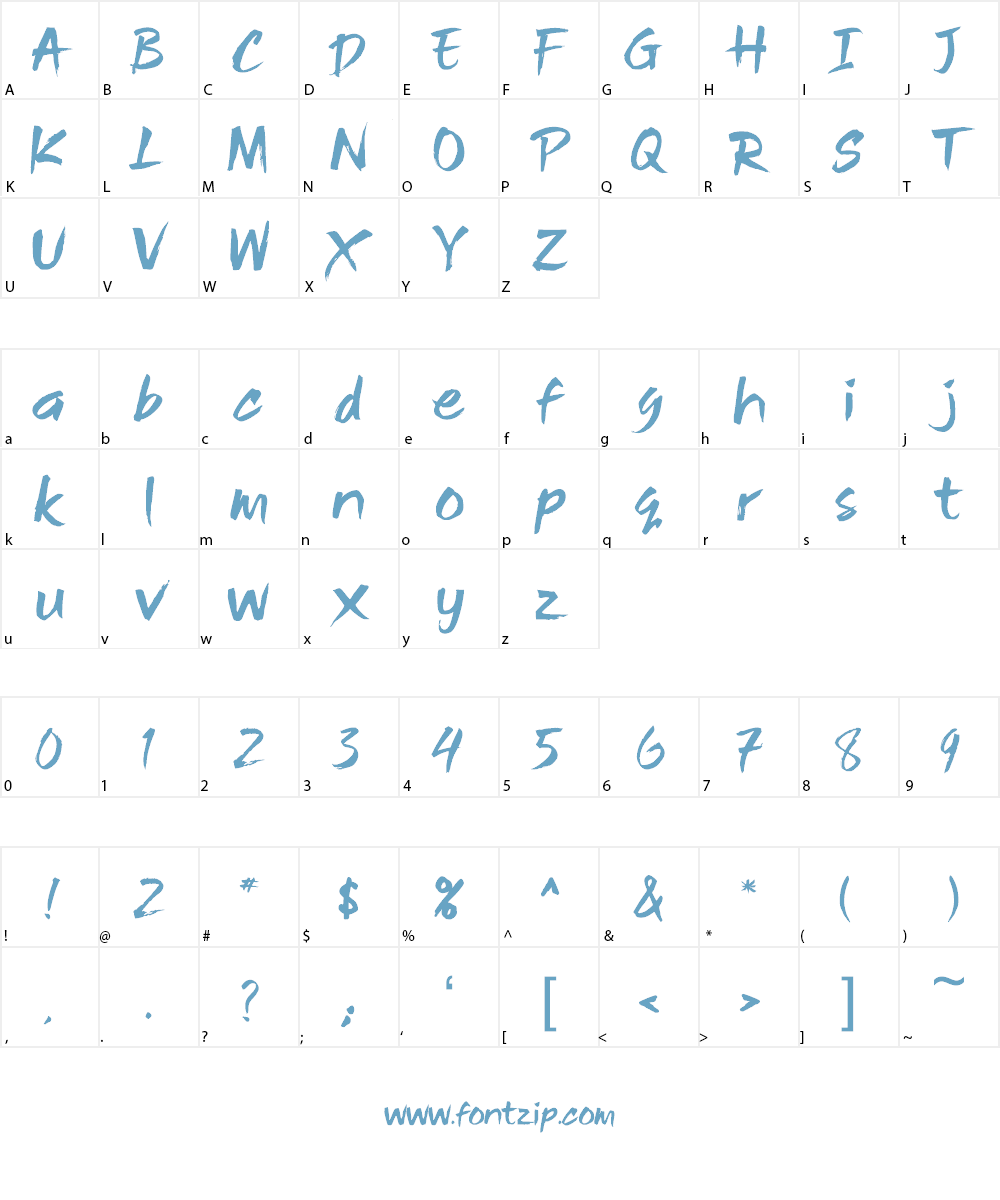
Bajigur Brush Font is a handmade brush font with free flowing bold, vigorous, stand out with keep the natural taste. Bajigur brush typeface font includes in uppercase, lowercase letters, standard numbers and punctuation.